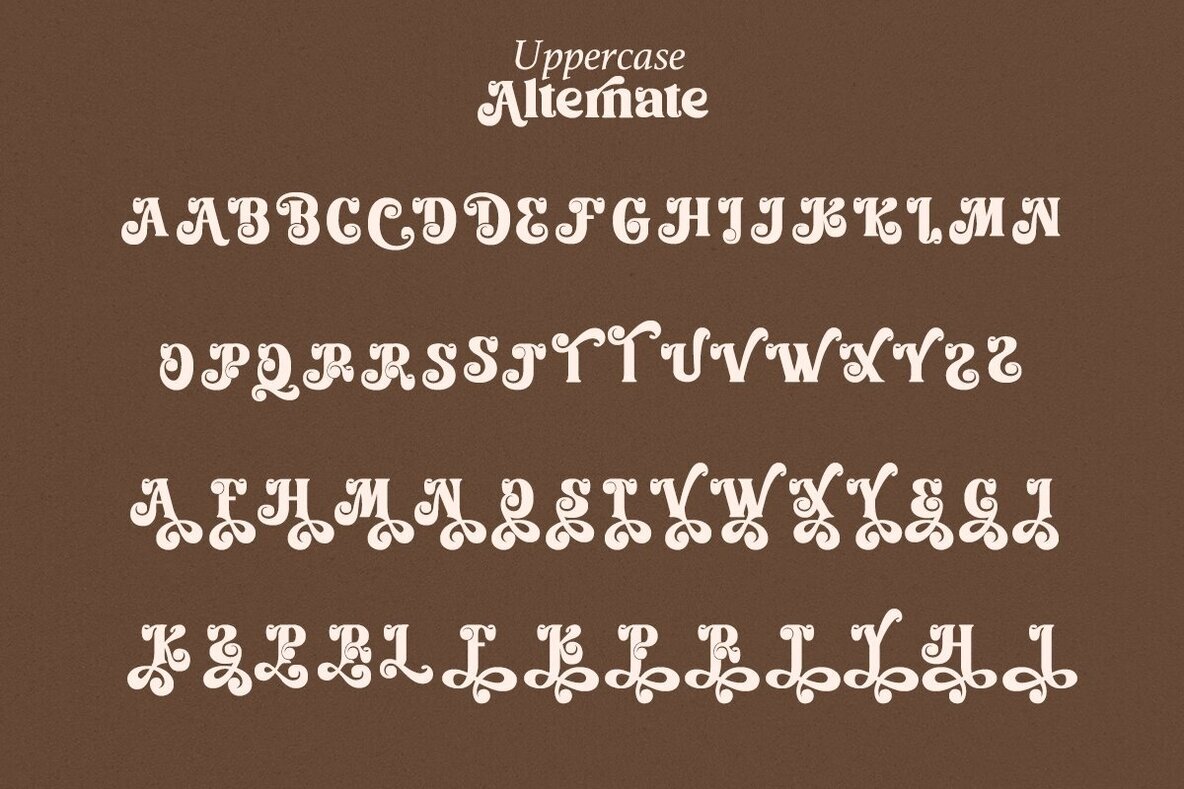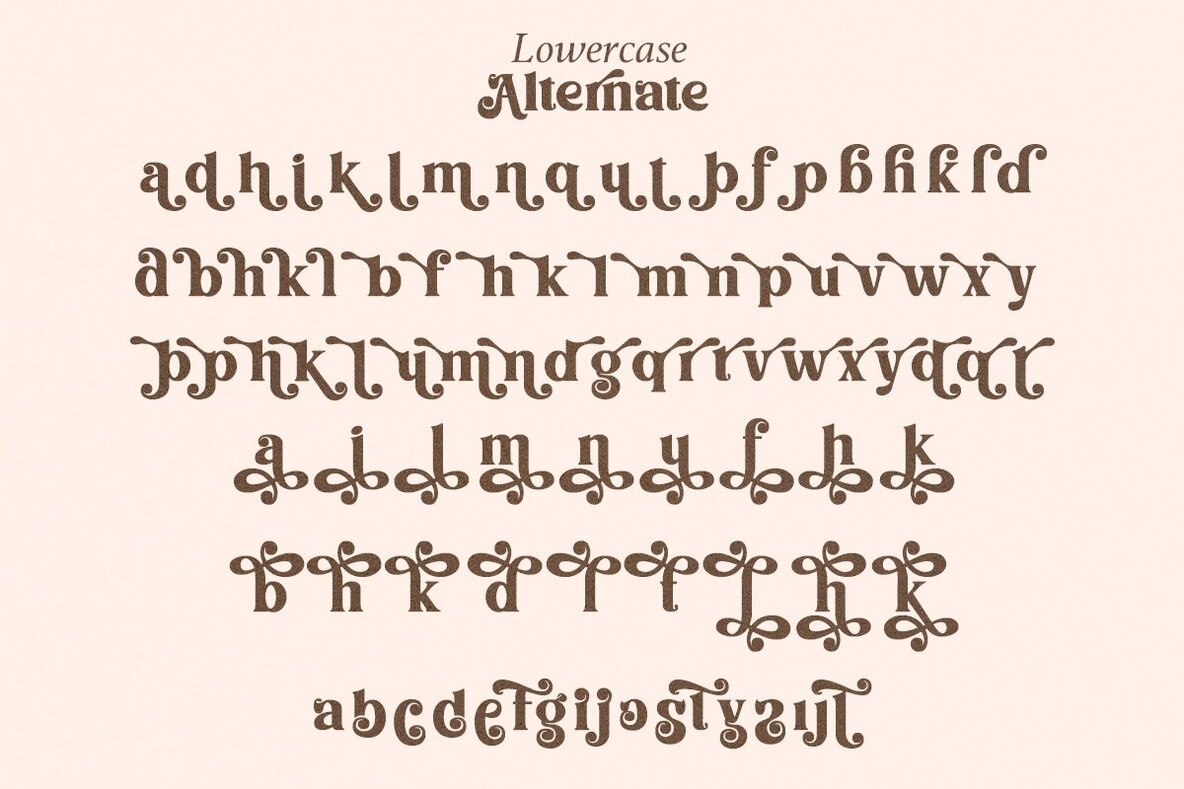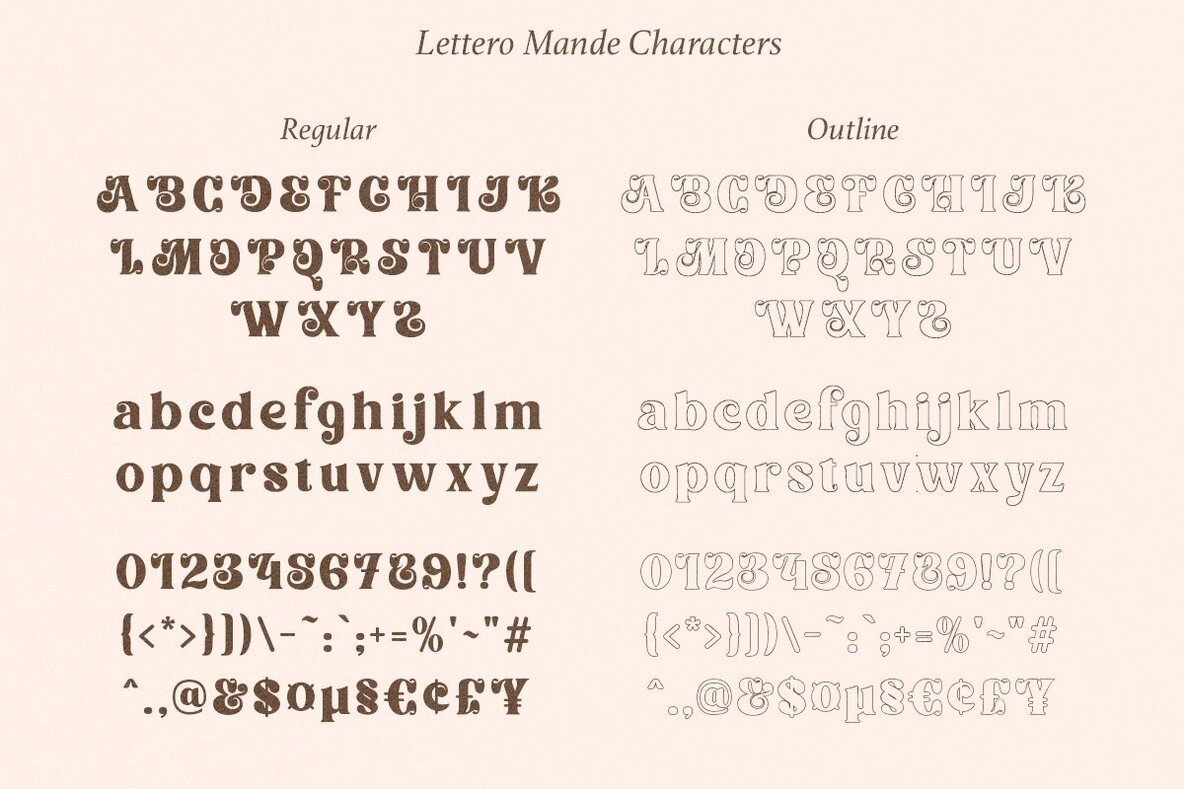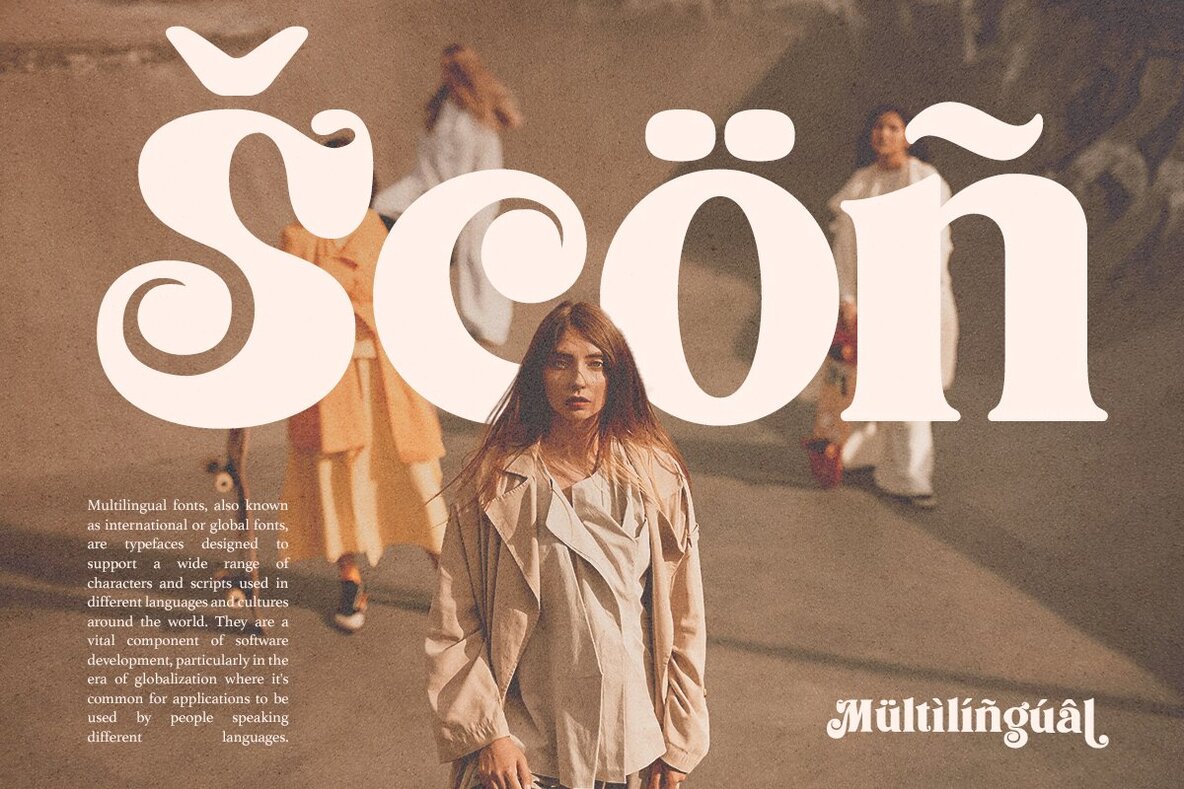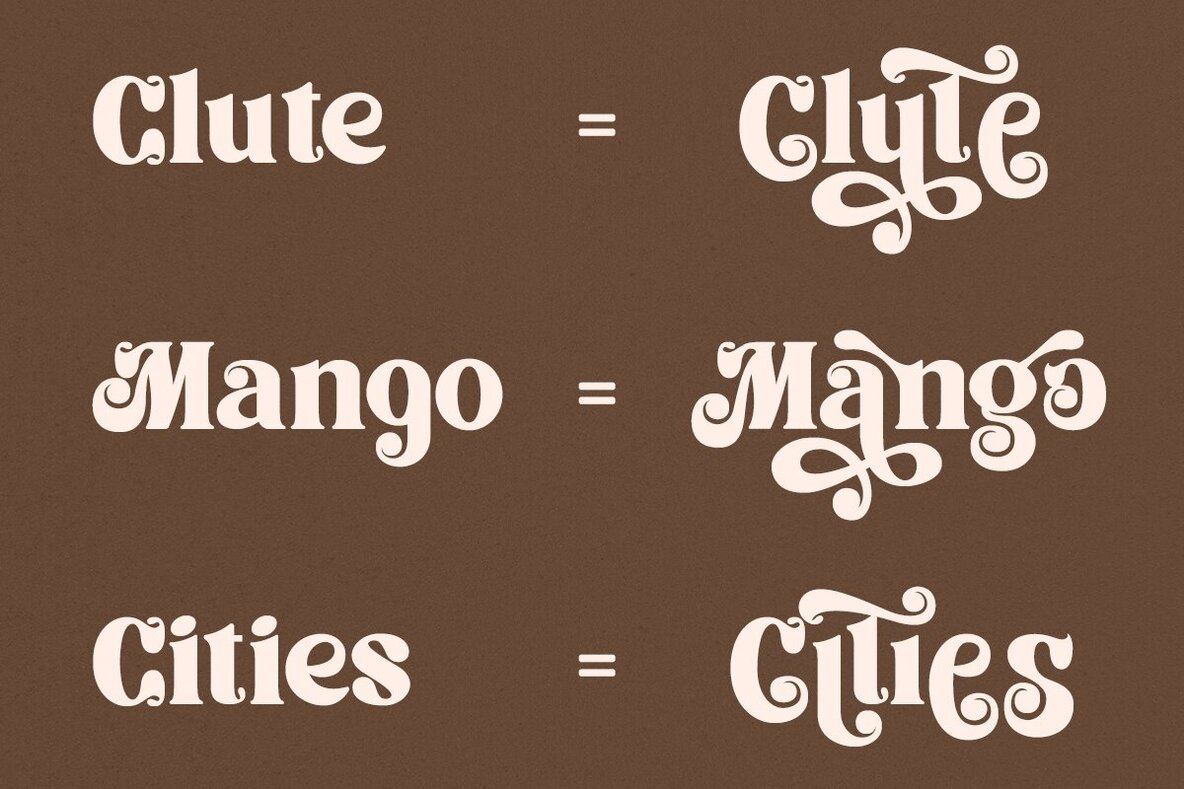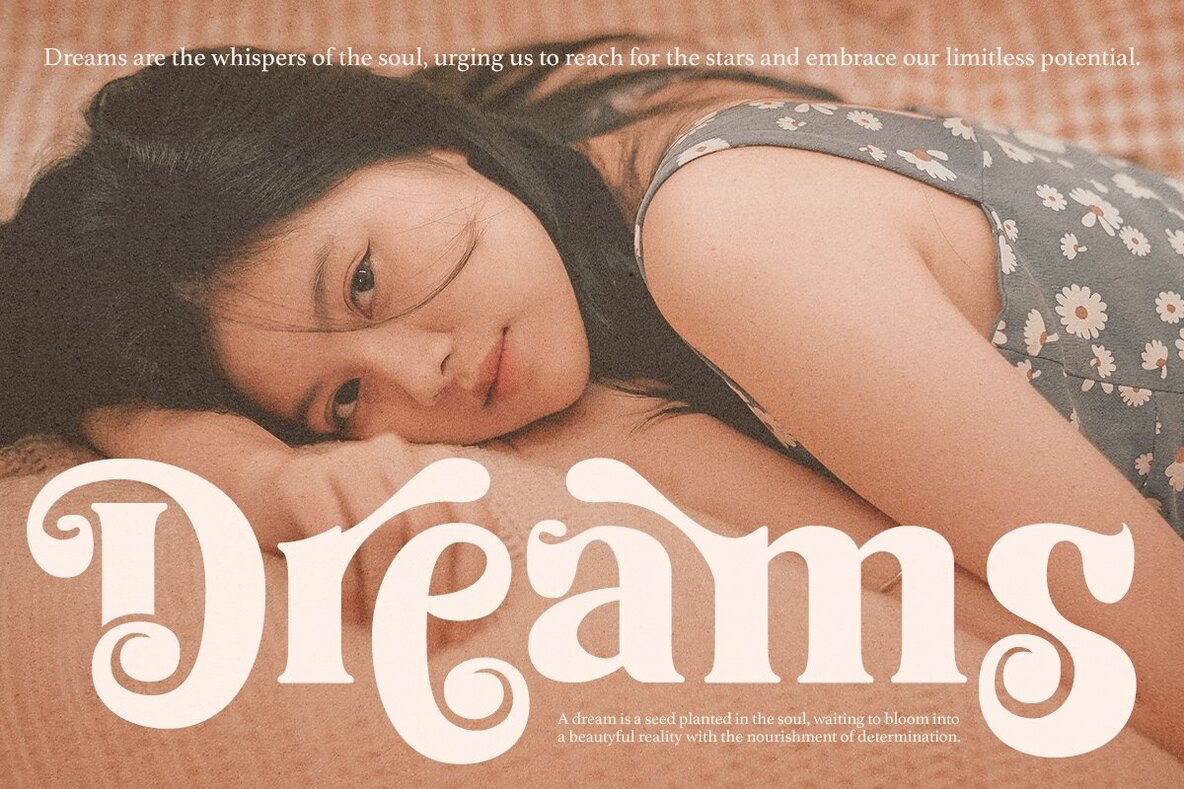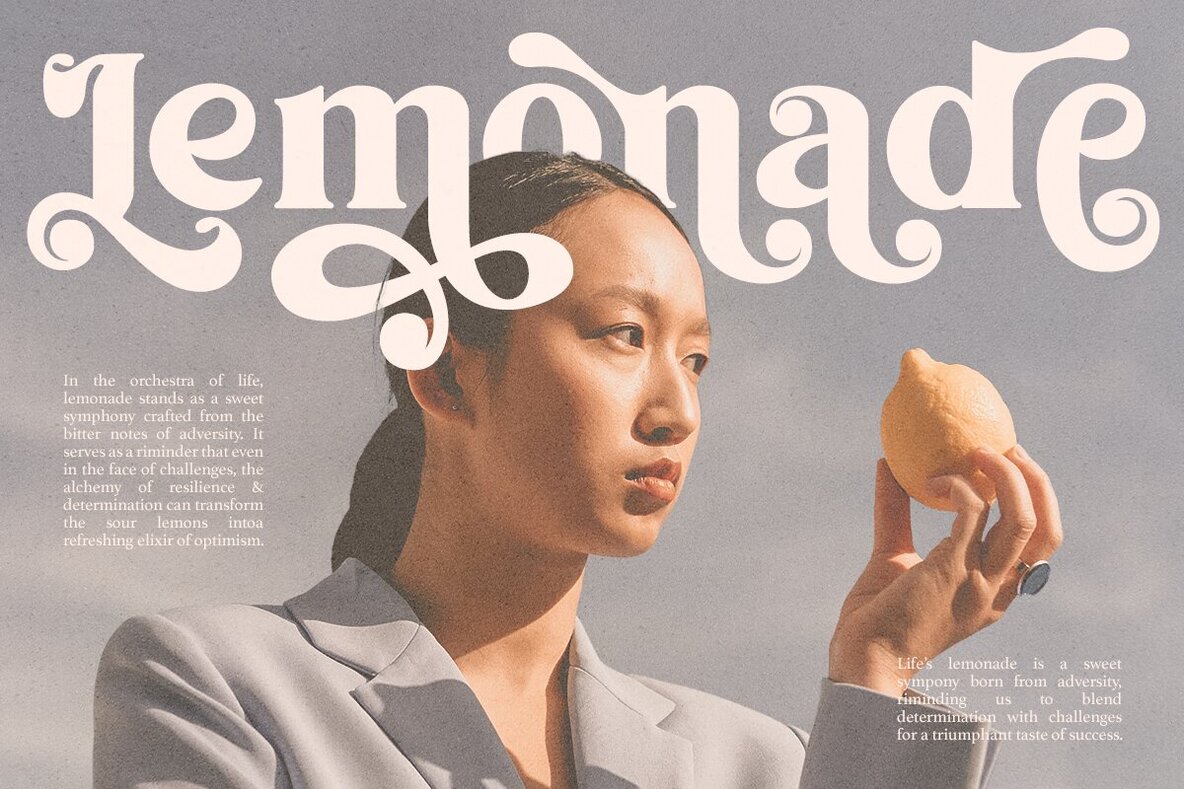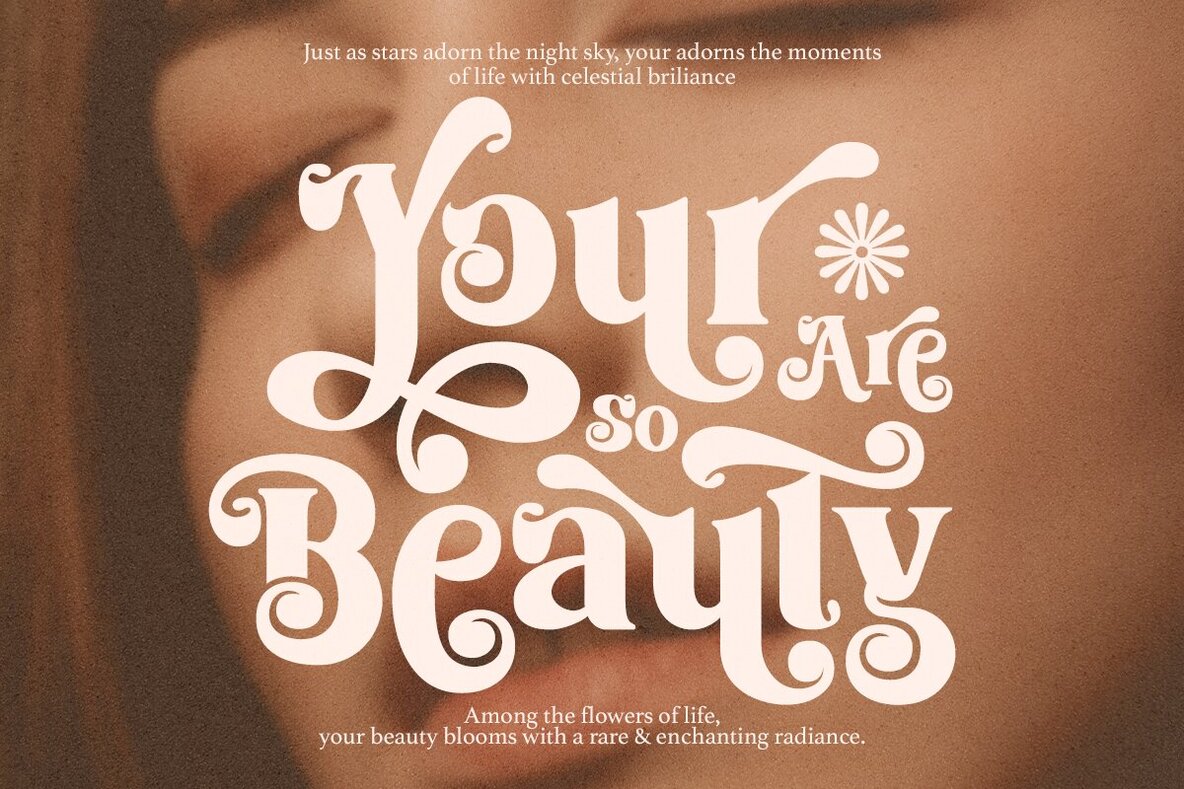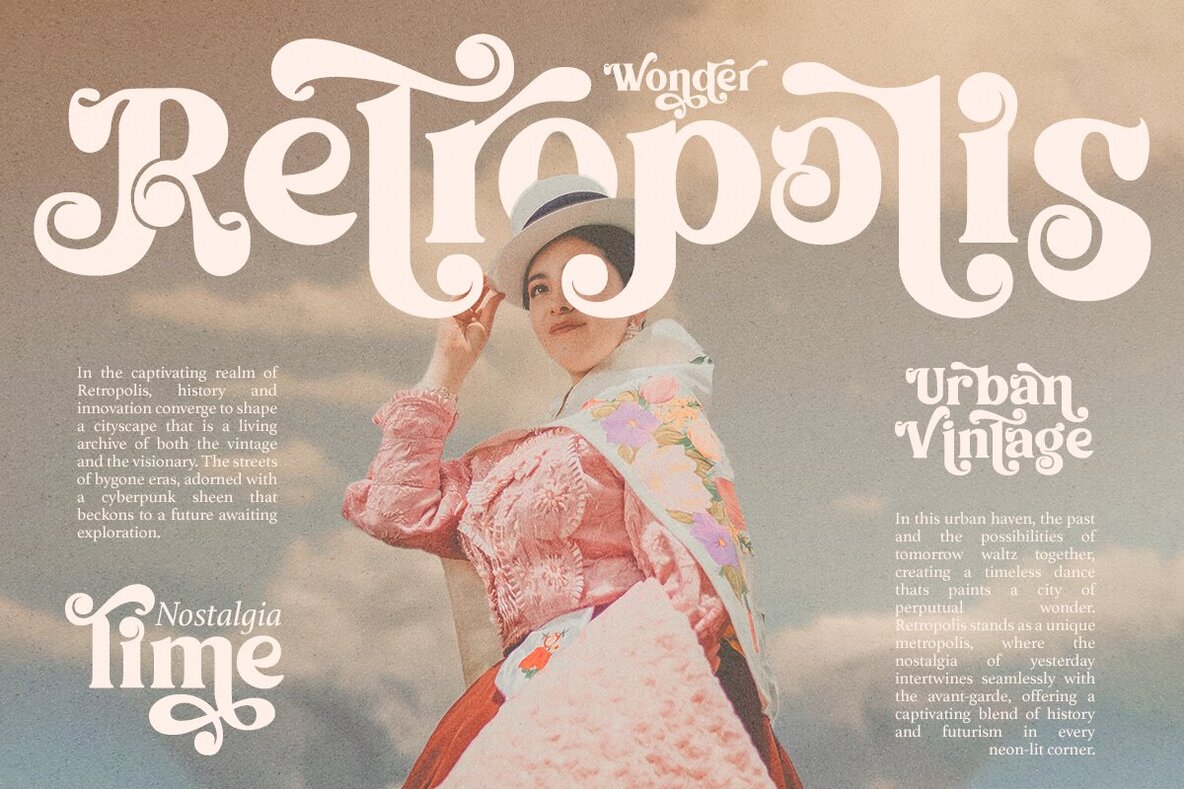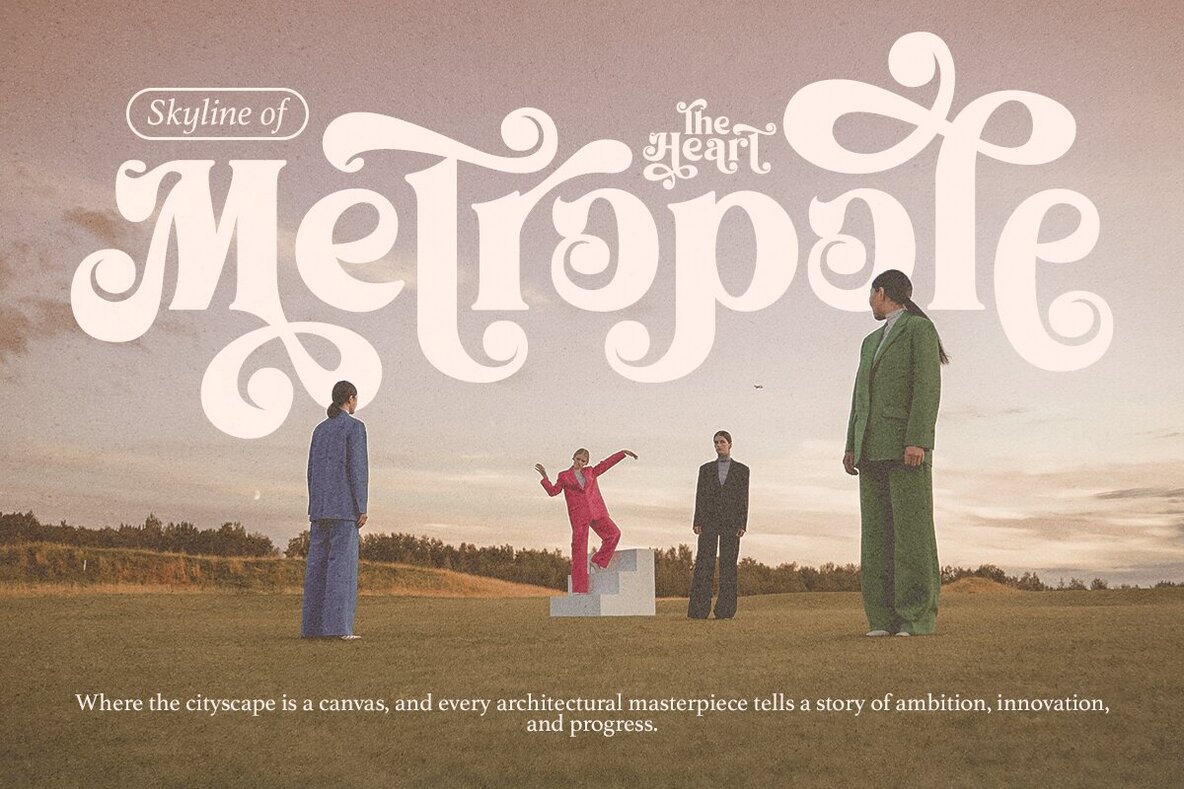
Lettero Mande Font
Lettero Mande Regular
Lettero Mande Outline
Lettero Mande is a typeface that captures a playfully nostalgic vintage aesthetic. This remarkable font is designed to make a statement in any project. Supports a wide range of languages including Danish, English, Estonian, Filipino, Finnish, French, Friulian, Galician, German, Gusii, Indonesian, Irish, Italian, Luxembourgish, Norwegian Bokmål, Norwegian Nynorsk, Nyankole, Oromo, Portuguese, Romansh, Rombo, Spanish, Swedish, Swiss-German, and Uzbek (Latin).Lettero Mande: Vintage Aesthetic Typeface with Playful Nostalgia